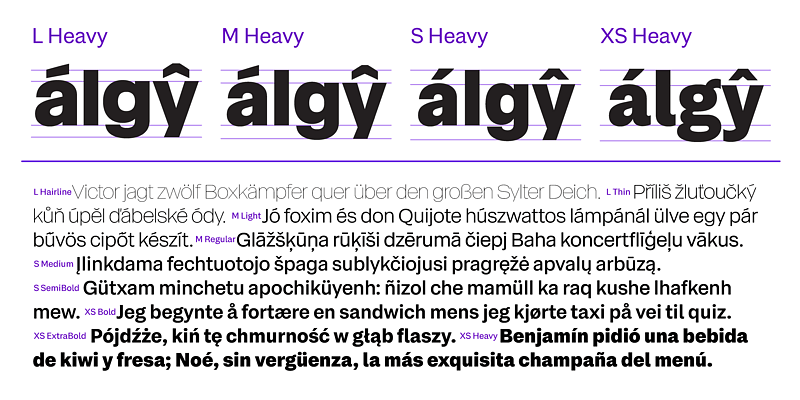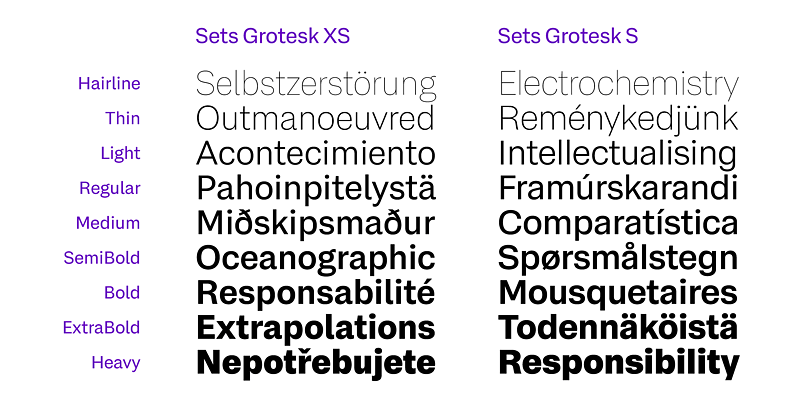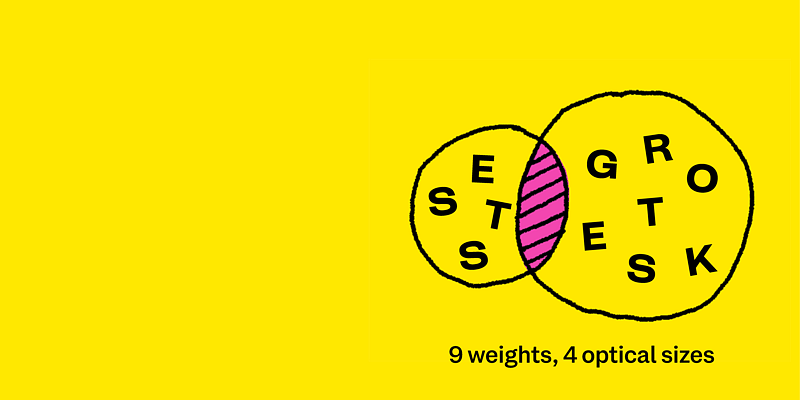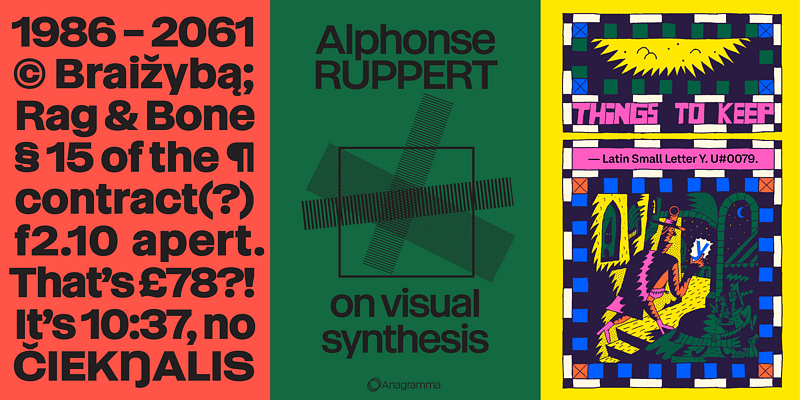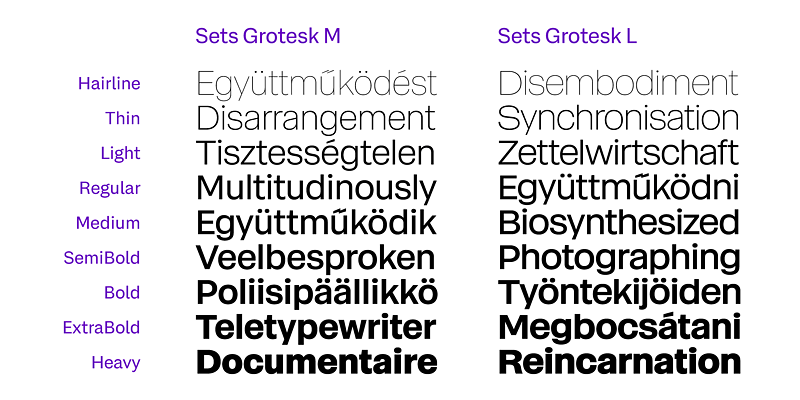
Sets Grotesk started as a straightforward sans trying very hard to be cool. Then, we decided to embrace interpretation and joy; a robot doing jazz hands. So we added quirk, polish, and optical sizes, but not the usual kind. In Sets Grotesk, the larger the intended use, the taller the x‑height, the shorter the ascenders & descenders, the bigger the dots, and the wider the characters—all inspired by 60s & 70s fonts. The result: a multipurpose neo-grotesque fit for a variety of uses that comes in 9 weights and 4 optical sizes.